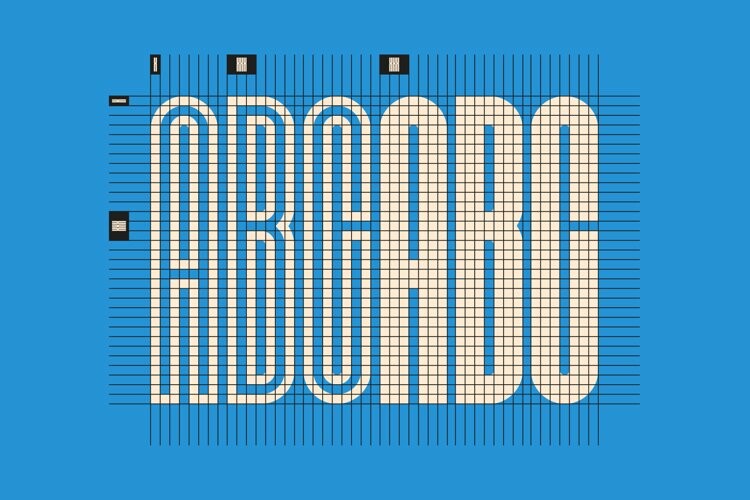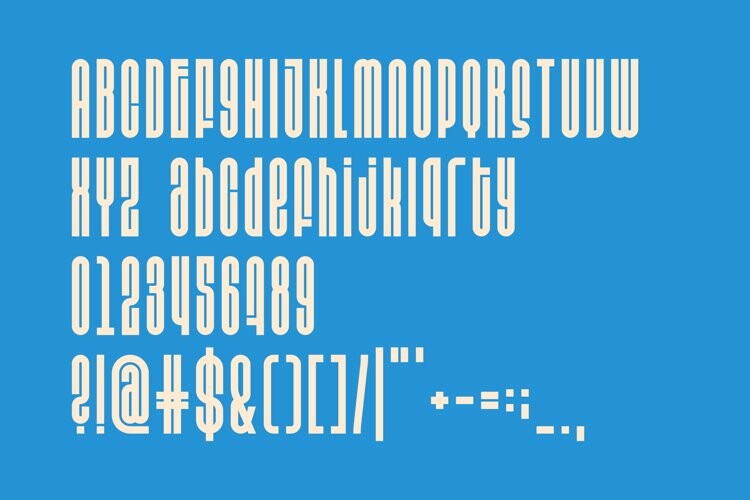
Courtside Font
Courtside FontCourtside a playful tall display typeface. Its 4 styles (solid, outline, solid underlined, and outline underlined), mix of sharp and rounded corners, alternate letters, and other features make it a versatile typeface and a great pick for a wide variety of designs.